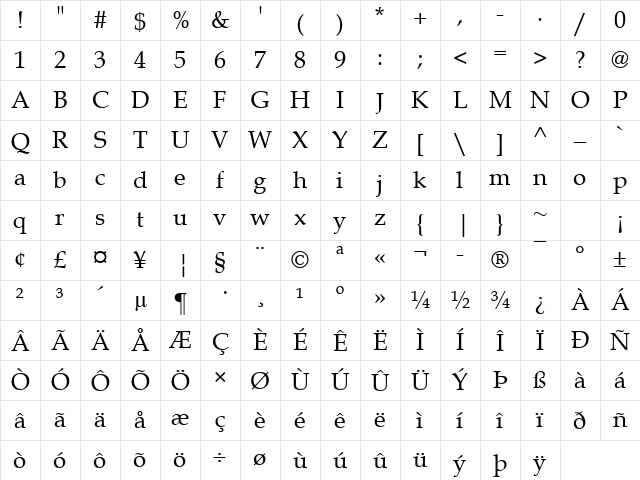
Book Antiqua Regular
Foundry: Monotype Typography, Inc.
Designer: Monotype Type Drawing Office
Design Context for Book Antiqua
Book Antiqua is a composed and adaptable typeface that performs quietly and consistently across a wide range of design contexts.